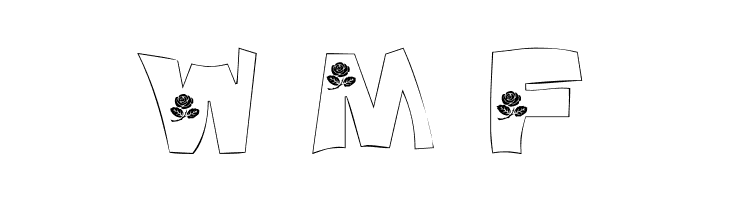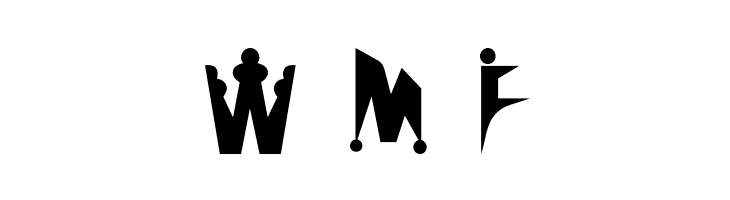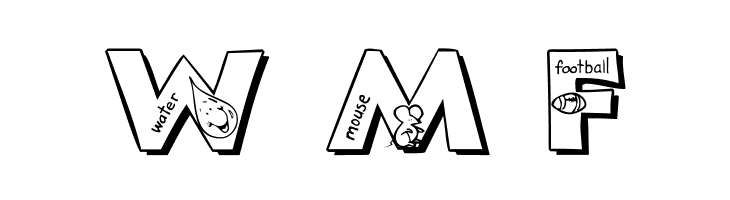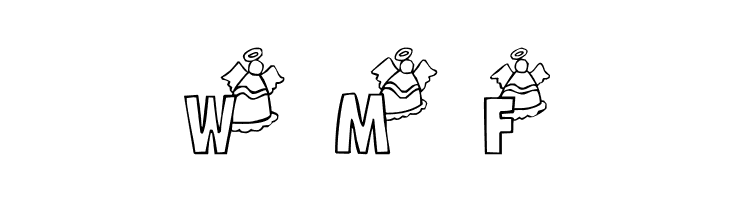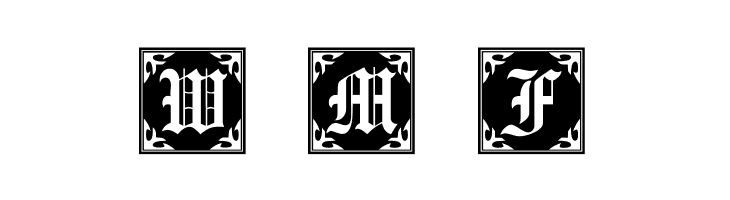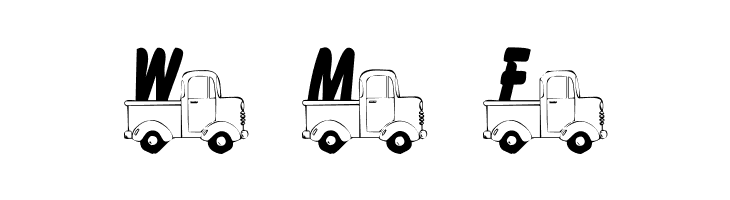
• 101 Lil Mikes Pup
A playful font with bold letters mounted on cartoon trucks, perfect for fun and creative projects.
• 101! I Pledge Allegiance
A bold, decorative font with characters enclosed in flag-like boxes.
• 101! #1 Dad
A decorative font with characters enclosed in medal-like shapes, perfect for playful designs.
• 101! A Ghostly Font
A whimsical font with each character depicted as a unique ghost illustration.
• 101! A Rose fer U
A bold, decorative font with rose illustrations on each character.
• 101! Abstrakt DeZign
A bold, abstract font with artistic and creative elements in each character.
• 101! Alpha Pikture 'Bet
A playful, illustrative font with embedded images for each character, ideal for educational use.
• 101! Ancient Greece
Display font using ancient Greek pottery and motifs as characters.
• 101! Angelic Alpha
A decorative font with bold letters and angelic figures, ideal for festive designs.
• 101! Antique Alpha
A decorative blackletter font with ornate, boxed characters and high contrast.